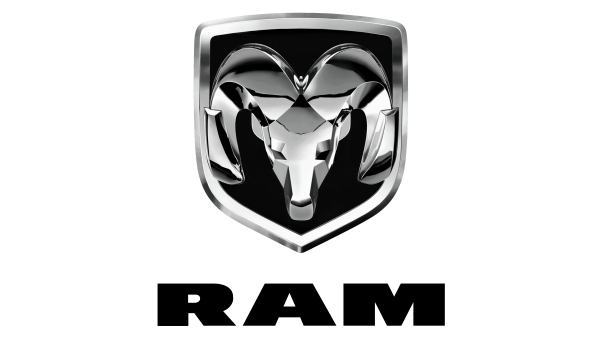
Ram Trucks Font
Ram Trucks Font is Optiflare — a bold futuristic sans-serif with sharp angles, wide proportions, and a powerful industrial look that gives the American truck brand’s wordmark its rugged, high-performance character. Introduced as a standalone Stellantis division in 2010, Ram has built a reputation for tough engineering and modern capability. Free for personal use.